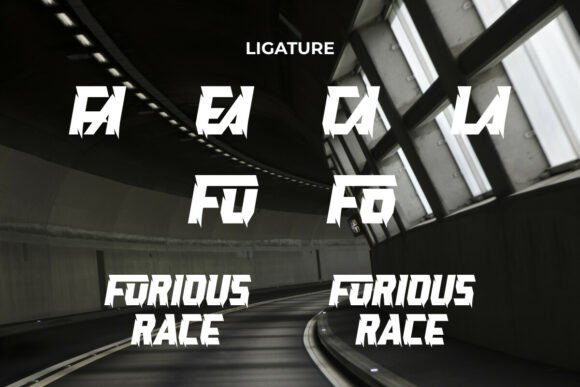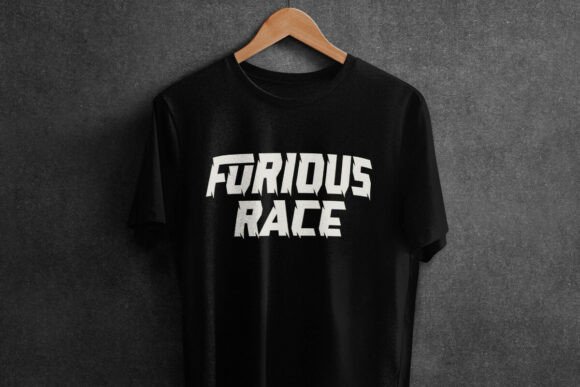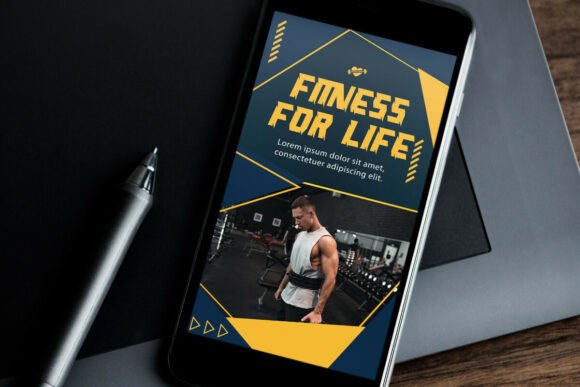
Unleash the Adrenaline: Discover the Furious Race Font
Have you ever been in the midst of a design project, and suddenly, you realize that something’s missing? The text just doesn’t have that punch, that wow factor you’re looking for. I recall a project where I was designing a poster for a local racing event. The theme was clear: speed, power, and raw energy. But no matter how hard I tried, the fonts I chose just didn’t convey that sense of urgency and excitement. That was until I stumbled upon the Furious Race Display Font. It was like a breath of fresh air – bold, aggressive, and incredibly dynamic. In this article, we’ll dive into what makes this font a game-changer for designers, crafters, and creative hobbyists alike.
A Personal Review: What I Love About Furious Race
Let’s get straight to it – here are the things I absolutely love about the Furious Race font:
- ✨ Dynamic and Fast-Paced Look: Every letter is crafted to look like it’s in motion, making it perfect for designs that need to scream speed and energy.
- ✅ Versatility: Whether it’s for a motorsports event poster, an e-sport logo, or high-octane apparel designs, Furious Race fits right in.
- 💪 PUA-Encoded for Easy Access: The font comes with PUA encoding, which means you get effortless access to all glyphs, swashes, and alternate characters. No more tedious searching for the perfect glyph!
While Furious Race is an amazing font, there are a few things to keep in mind:
- ⚠️ Legibility at Small Sizes: Due to its bold and aggressive nature, Furious Race might not be the best choice for body text or small sizes. It’s really designed to make a statement.
- 🤔 Learning Curve for OpenType Features: If you’re new to using OpenType features or glyphs, there might be a slight learning curve. However, once you get the hang of it, you’ll be creating stunning designs in no time.
The Inspiration Behind Furious Race
While the actual designer of Furious Race remains a mystery, it’s easy to imagine that the inspiration came from the world of extreme sports and high-speed racing. The font embodies the thrill of speeding down a racetrack or the rush of adrenaline during a competitive gaming session. It’s as if the designer took all the energy and excitement of these experiences and distilled them into a typeface.
| Is Furious Race suitable for body text? | No, due to its bold and aggressive design, Furious Race is best used for titles and headings. For body text, a more readable font is recommended. |
| Does Furious Race support multiple languages? | Most display fonts, including Furious Race, are designed with basic Latin characters. If you need support for additional languages, check the font’s specifications or contact the creator. |
In conclusion, the Furious Race Display Font is a powerful tool for any designer looking to add a burst of energy and speed to their projects. Its bold, dynamic look and extensive OpenType features make it versatile and highly effective for a wide range of applications. While it may have a few quirks, the benefits far outweigh the limitations. So, the next time you’re looking to make a statement with your typography, give Furious Race a try – you won’t be disappointed!